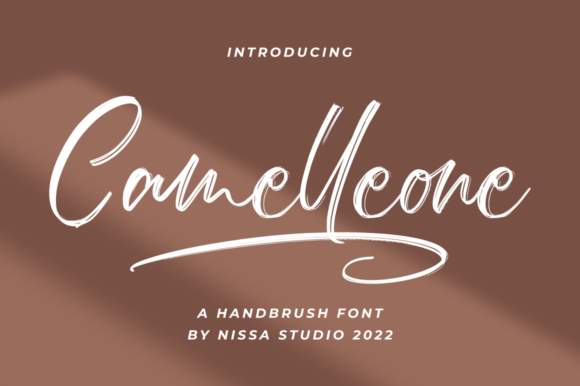
Introduction to Camelleone Font
Camelleone is a gorgeous and bold brushed handwritten font crafted to give your headlines and logotype projects a stylish touch.
This font reads as strong, confident, and dynamic, and can add tons of nostalgic character to your designs .